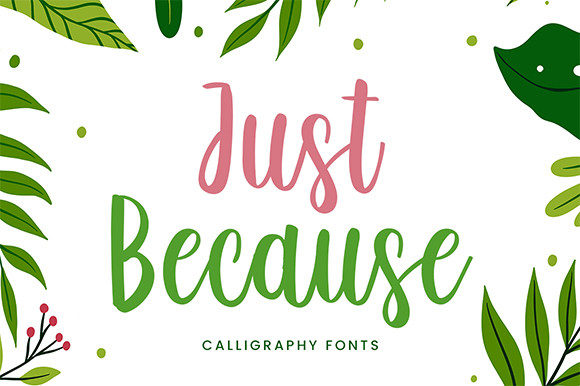
Introducing Just Because Font: A Script Font Symphony for Every Occasion
In a world where words dance and emotions sway, there exists a font that captures the essence of heartfelt expression like no other – Just Because Font. This exquisite script font, the brainchild of Bluestype Studio, is an artistic masterpiece that transforms your digital creations into enchanting visual experiences.
Just Because Font: A Journey of Elegance and Finesse
Just Because Font is not just another font; it's an invitation to embark on a journey of elegance and finesse. Its distinct, well-rounded letters, meticulously crafted with a keen eye for detail, create a visual symphony that captivates the beholder. This font is a testament to the power of typography, demonstrating how letters can transcend their mundane purpose and become art.
Beyond Aesthetics: The Functionality of Just Because Font
While its beauty is undeniable, Just Because Font is not merely a pretty face. Its versatility extends far beyond aesthetics, making it a practical choice for a wide range of branding projects. Envision your logos adorned with the graceful curves of Just Because Font, evoking a sense of sophistication and charm. Unleash your creativity in t-shirt designs, imbuing them with a personal touch that speaks to the heart. Elevate your sport designs with the dynamic energy of this font, capturing the essence of athleticism and competition.
The Magic of Just Because Font: A Versatile Gem for Diverse Contexts
The beauty of Just Because Font lies in its adaptability. It shines effortlessly in a multitude of contexts, transforming ordinary designs into captivating expressions. Whether you're crafting wedding invitations that exude romance, designing social media posts that radiate warmth, or creating marketing materials that leave a lasting impression, Just Because Font is your trusted companion.